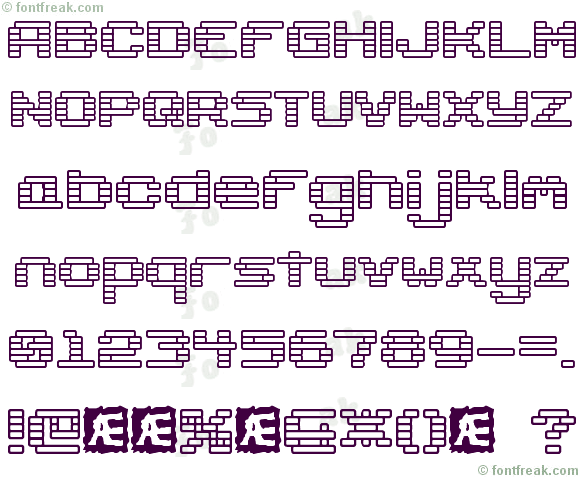
Gaposis Outline (BRK)
Gaposis Solid (BRK)
About Gaposis
Introducing the Gaposis font by Ænigma Fonts, a striking display typeface that captivates with its unique visual appeal. This font falls into the decorative category, making it an ideal choice for projects that aim to stand out. With its bold, block-like structure and playful design, Gaposis features a distinctive outline style that is both modern and eye-catching. The stroke weight is consistent, providing a solid presence, while the rounded edges add a friendly touch, making it approachable yet stylish.
The Gaposis font is characterized by its spacious letterforms, which enhance readability and provide an airy feel. The absence of intricate decorative elements keeps the focus on its geometric shapes, allowing it to convey a contemporary aesthetic without overwhelming the viewer. This simplicity makes it versatile for various applications, whether you are designing for print or digital media.
Best suited for creative projects like movie posters, trendy restaurant menus, graphic design portfolios, and vibrant advertising campaigns, Gaposis brings a sense of energy and innovation to any design. Its unique style appeals to graphic designers looking to make a memorable impression, as well as small business owners eager to create eye-catching branding materials.
For content creators seeking to elevate their projects, the Gaposis font free download offers an accessible way to incorporate a distinctive typeface into their toolkit. This font stands out not only for its playful and modern design but also for its ability to adapt to different contexts, whether it’s used in a whimsical invitation or a bold promotional graphic. Embrace the creativity that Gaposis brings and make your designs pop with this unique typeface.